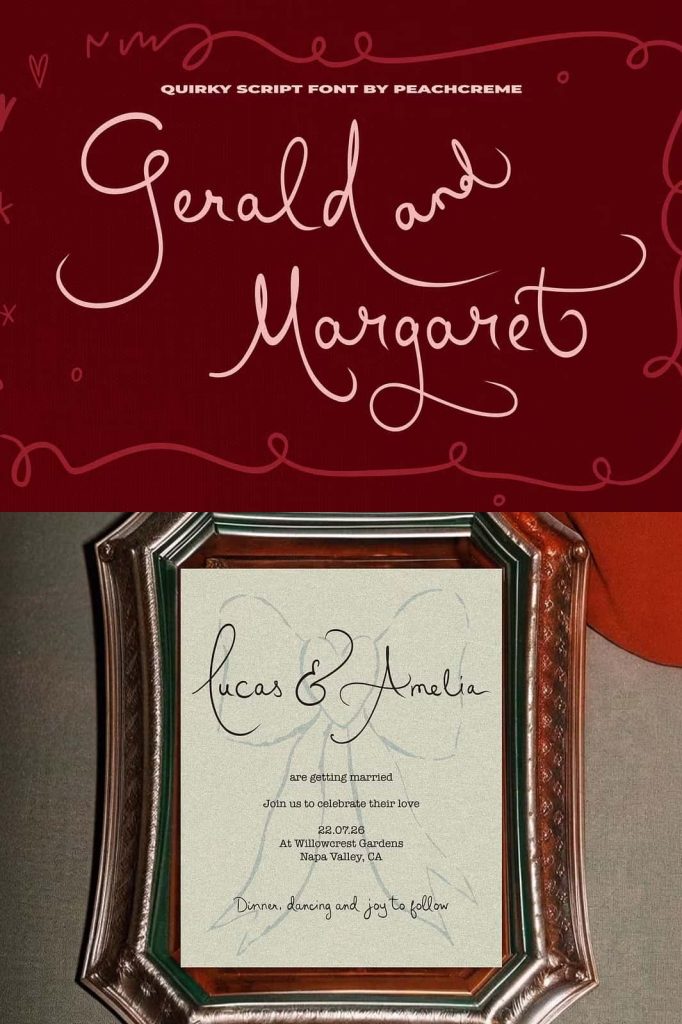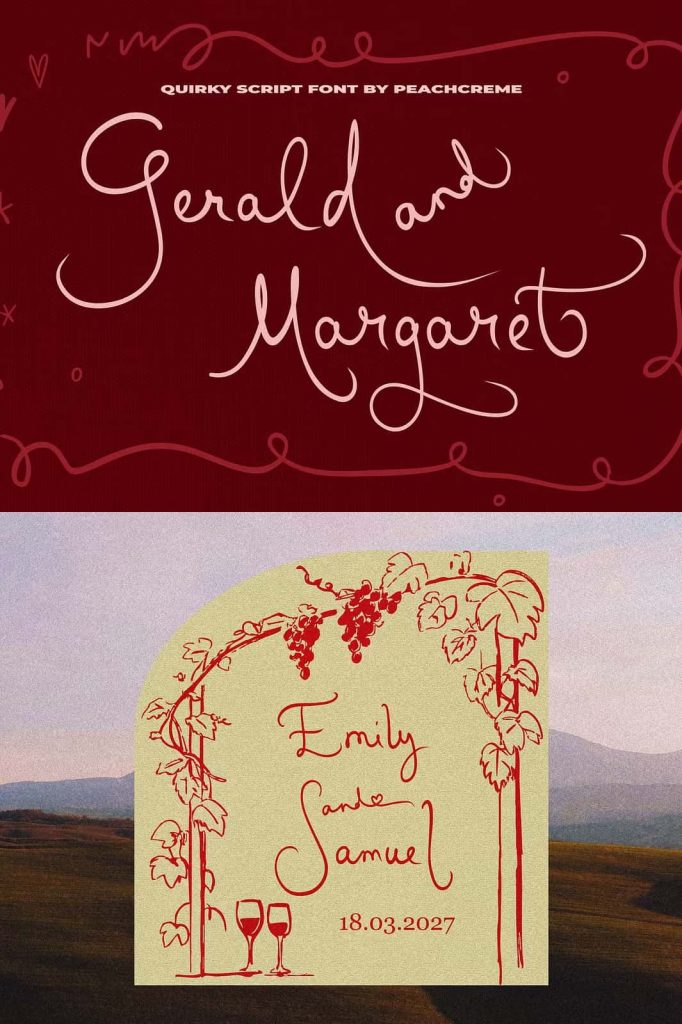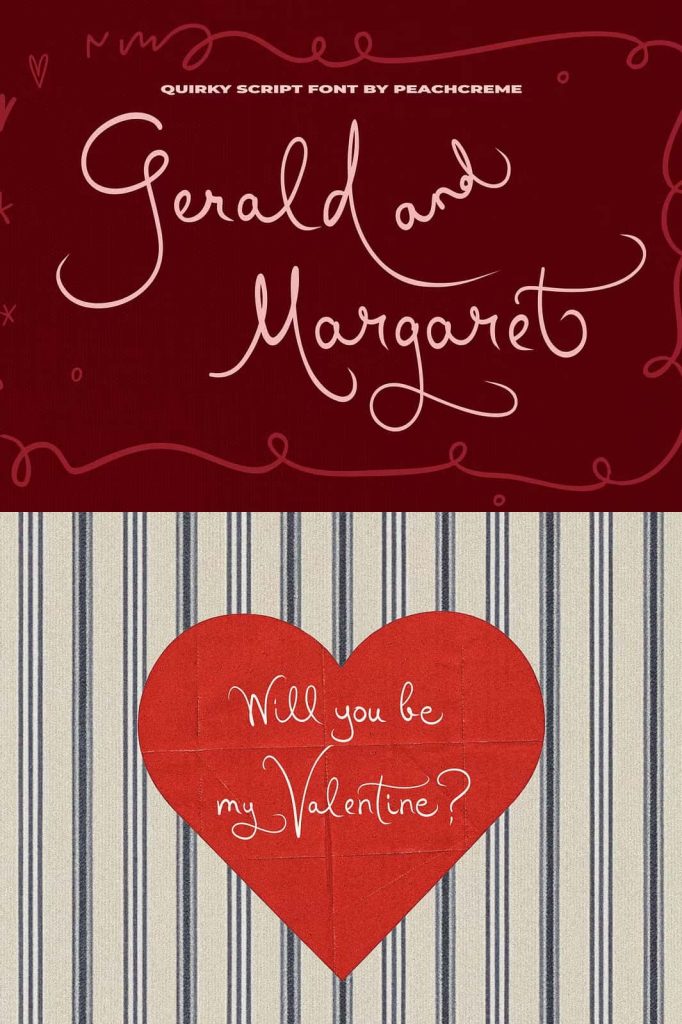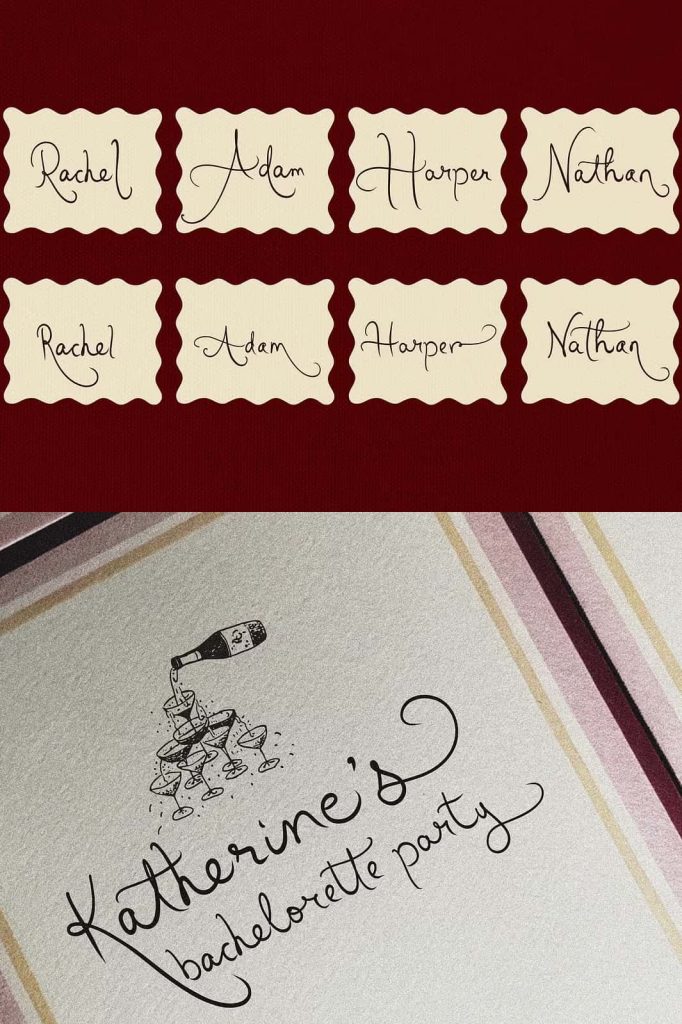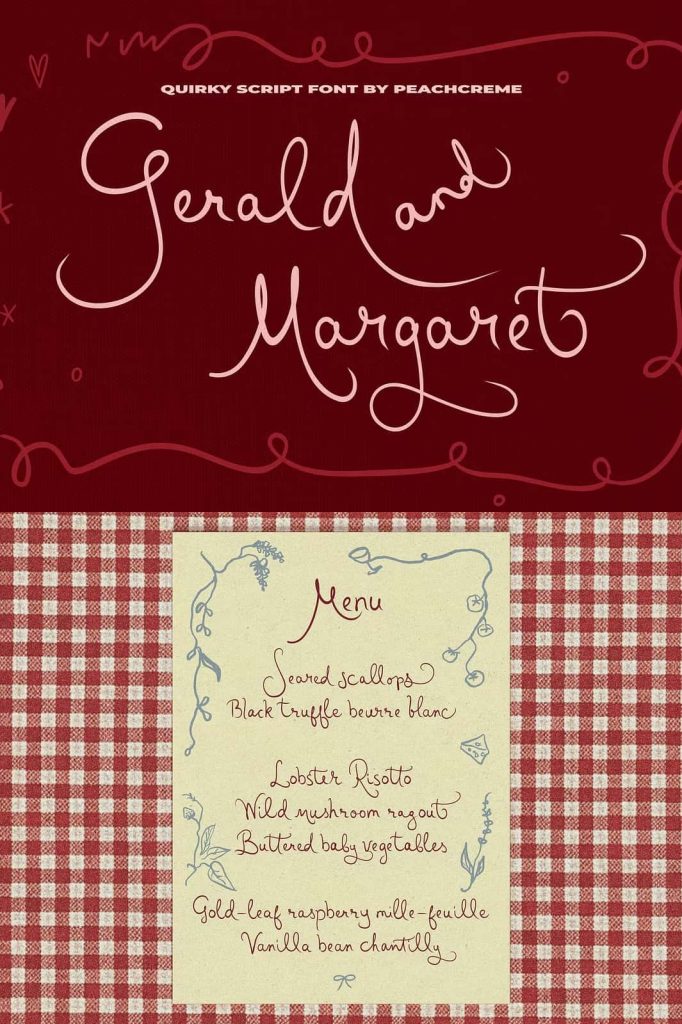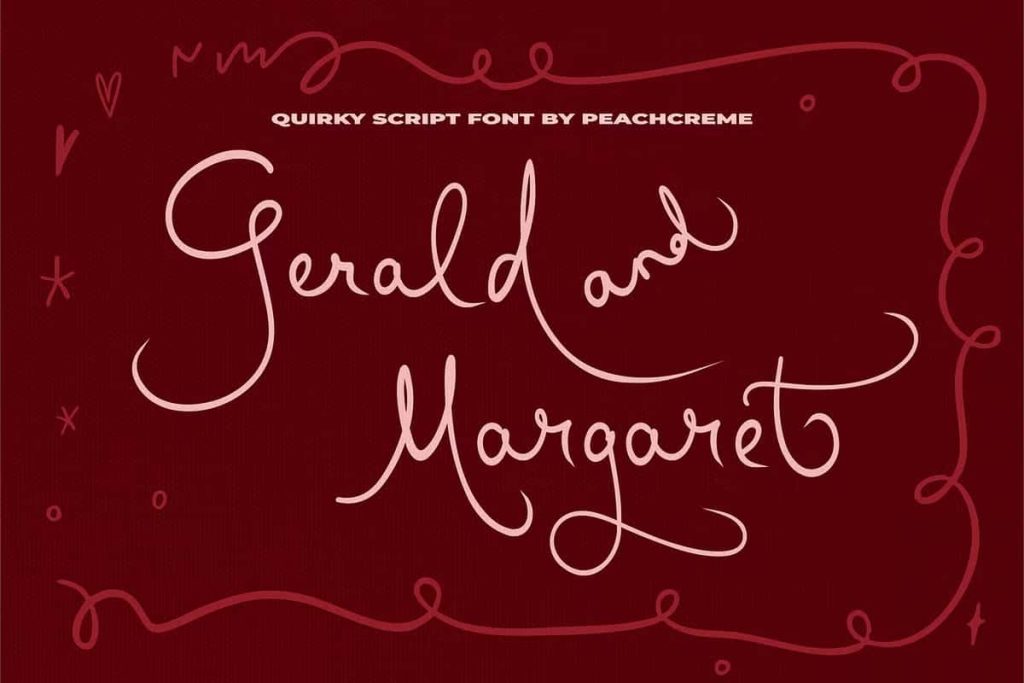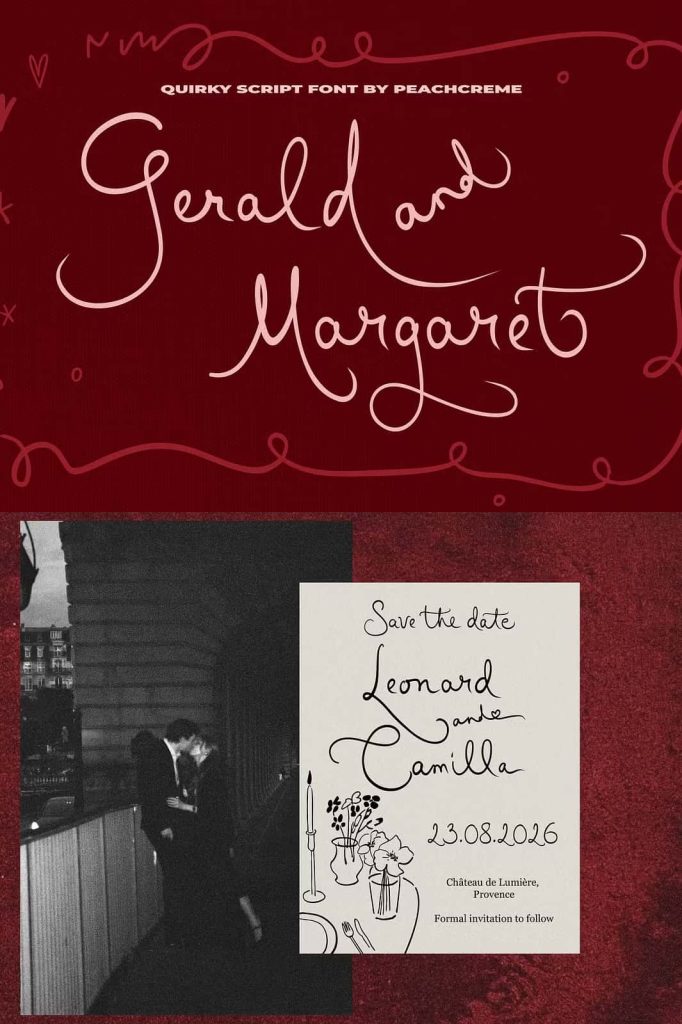
Gerald and Margaret Script Font: A Playful and Charming Typeface
Gerald and Margaret is a quirky and light-hearted script font that brings a lively personality to any design. With its smooth flowing strokes and charming handcrafted details, this typeface captures the warmth and spontaneity of natural handwriting. Designers who want to add character, friendliness, and creative flair to their projects will find this font both expressive and versatile.
Unlike rigid typefaces that feel mechanical or formal, Gerald and Margaret embraces a relaxed and playful tone. Every curve and stroke feels natural, giving text a human touch that immediately connects with viewers. This makes the font ideal for projects that aim to communicate warmth, creativity, and personality.
The Unique Personality of Gerald and Margaret
Gerald and Margaret stands out because of its lively script style and distinctive character shapes. Each letter flows smoothly into the next, creating a natural rhythm that mimics authentic handwriting. The subtle variations in strokes give the font an organic appearance that feels spontaneous yet carefully crafted.
The playful structure of this script font makes it perfect for designs that need to feel friendly and inviting. The letters maintain readability while still delivering a unique personality. This balance allows designers to use the font in both decorative and functional roles.
Its whimsical appearance also gives designers more freedom to experiment with creative layouts. Whether used for large titles or small decorative text, Gerald and Margaret adds energy and charm without overwhelming the design.
Perfect for Creative and Personal Design Projects
Gerald and Margaret works beautifully across a wide variety of creative projects. Designers often choose this font when they want to give their work a warm, approachable look. The playful strokes make it ideal for designs that aim to feel personal, handcrafted, and expressive.
This script font is especially effective for:
Branding and Logo Design
Gerald and Margaret can give logos a friendly and memorable personality. Small businesses, boutique brands, and creative entrepreneurs can use this font to build a visual identity that feels approachable and unique.
Invitations and Event Stationery
The elegant yet playful style of the font makes it a wonderful choice for invitations. Wedding invitations, birthday cards, baby showers, and other celebrations can benefit from the warm tone that this script font provides.
Social Media Graphics
In the fast-paced world of social media, visual personality matters. Gerald and Margaret helps posts stand out with its expressive strokes and charming letterforms. Designers can use it for quotes, headlines, announcements, or promotional graphics.
Product Packaging
Brands that want packaging with a handcrafted feel can rely on this font to deliver a distinctive look. It works especially well for artisanal products, handmade goods, lifestyle brands, and boutique packaging designs.
Handwritten Style That Feels Natural
One of the strongest qualities of Gerald and Margaret is its natural handwritten appearance. Many script fonts attempt to imitate handwriting, but this typeface captures the fluid motion and relaxed rhythm that make handwritten text feel authentic.
The smooth curves and flowing connections between characters create visual harmony across words and sentences. This allows designers to produce layouts that feel dynamic and expressive while maintaining strong readability.
Because of its balanced structure, Gerald and Margaret can function as both a display font and a decorative script. It looks striking in large headlines while still remaining legible in smaller applications.
Why Designers Love Gerald and Margaret
Designers appreciate fonts that combine personality with usability, and Gerald and Margaret achieves this balance beautifully. Its playful character makes designs feel lively, while its smooth script structure keeps text easy to read.
The font also adapts well to many different design styles. Whether the project leans toward modern, rustic, vintage, or handcrafted aesthetics, Gerald and Margaret integrates smoothly into the overall visual concept.
For creatives who want to bring warmth, creativity, and personality into their typography, this script font offers a reliable and stylish solution.
Bring Warmth and Creativity to Your Typography
Gerald and Margaret is more than just a decorative script font. It is a typeface that brings emotion, friendliness, and artistic character into design work. The playful strokes and flowing shapes make every word feel expressive and engaging.
Whether you are designing invitations, branding materials, social media graphics, or packaging, Gerald and Margaret can elevate your typography with charm and individuality. Its unique handwritten style ensures that your designs feel personal, creative, and full of life.
If you are searching for a font that blends playful energy with elegant script styling, Gerald and Margaret is an excellent choice for adding warmth and character to your next design project.